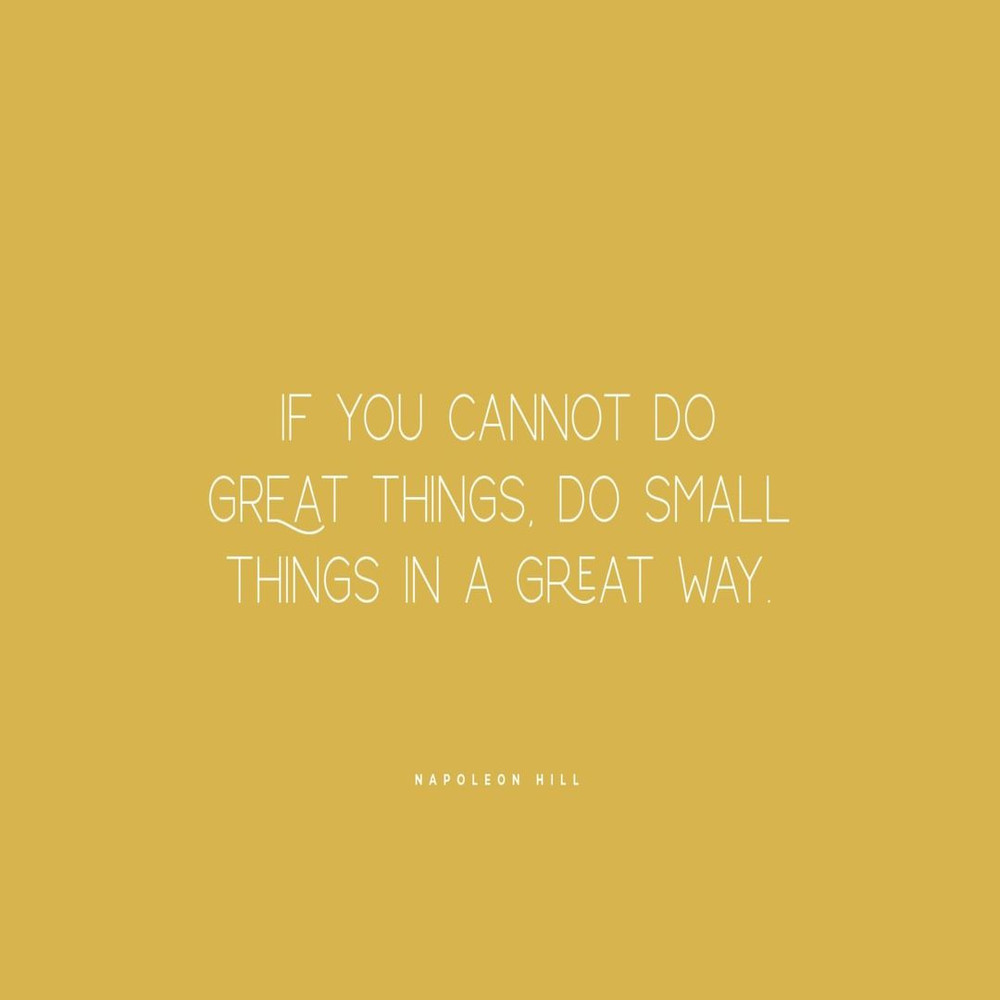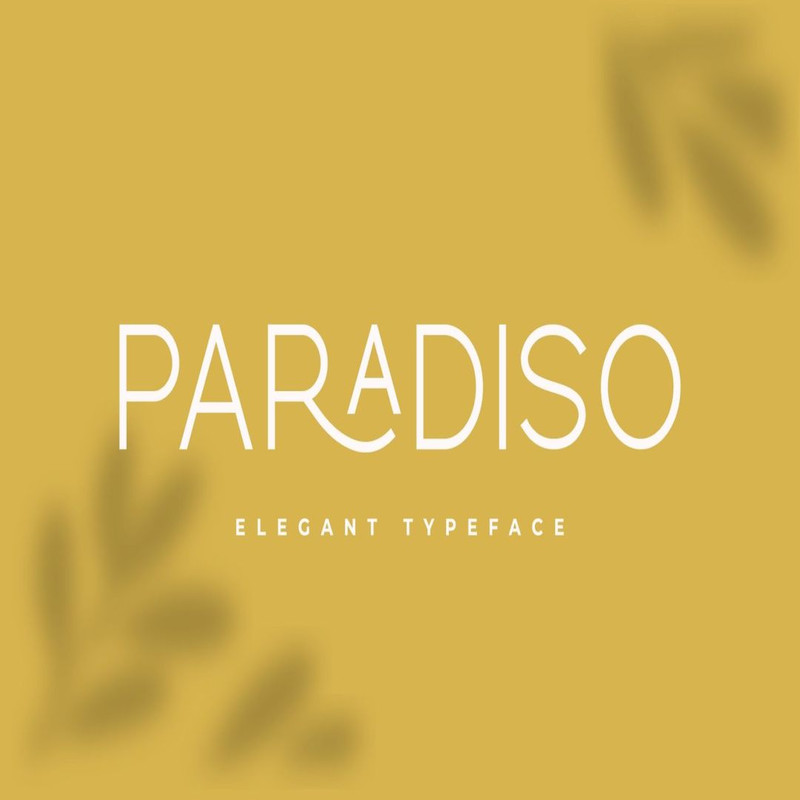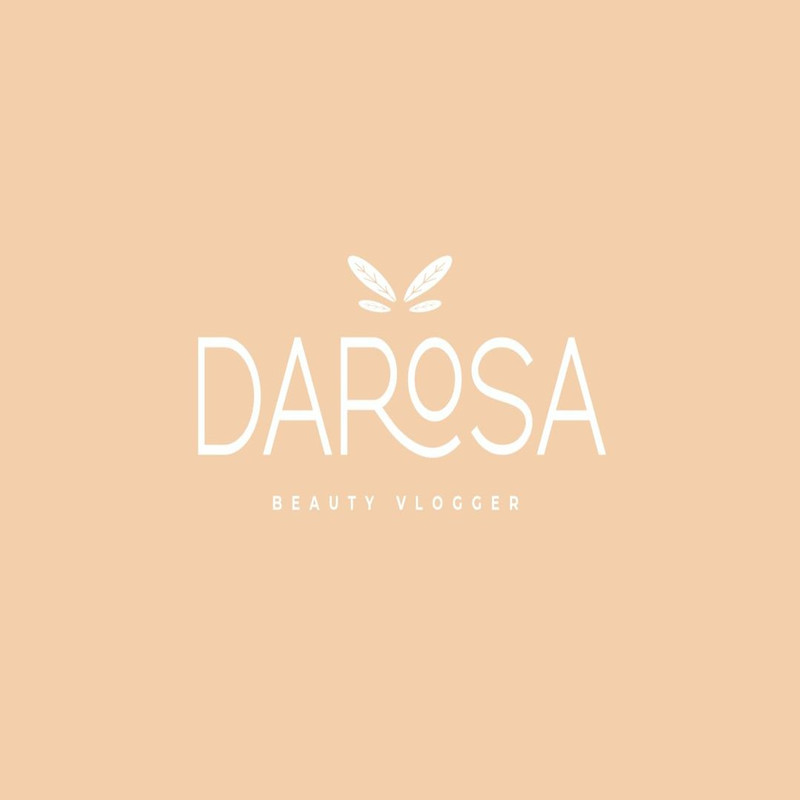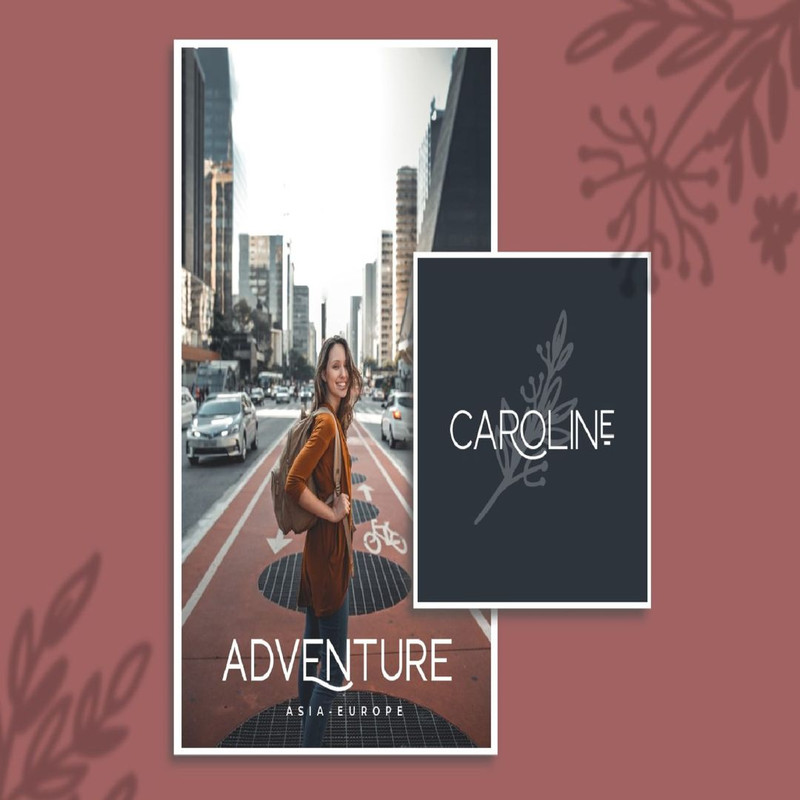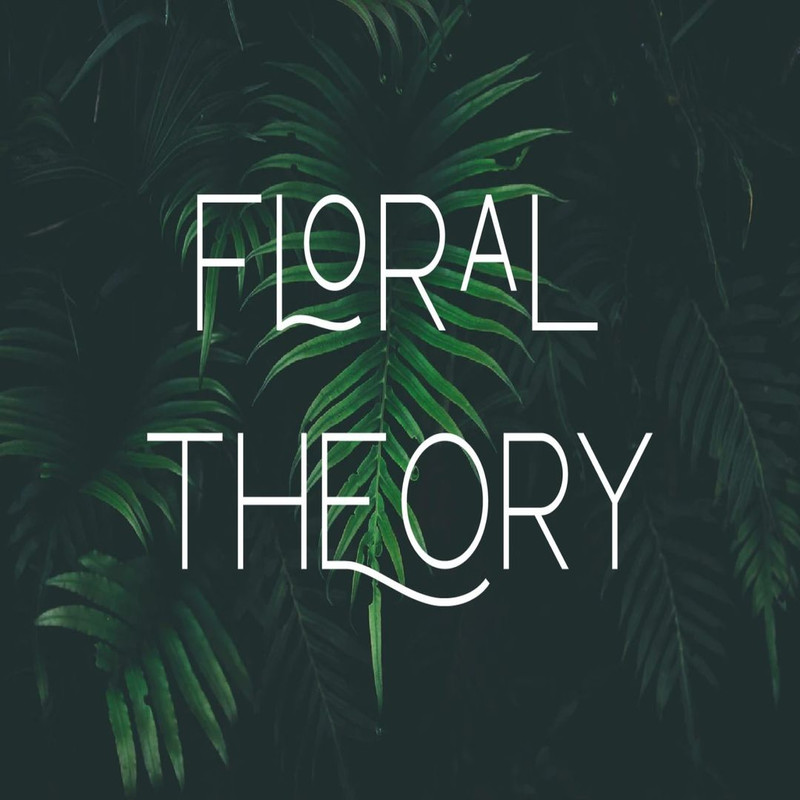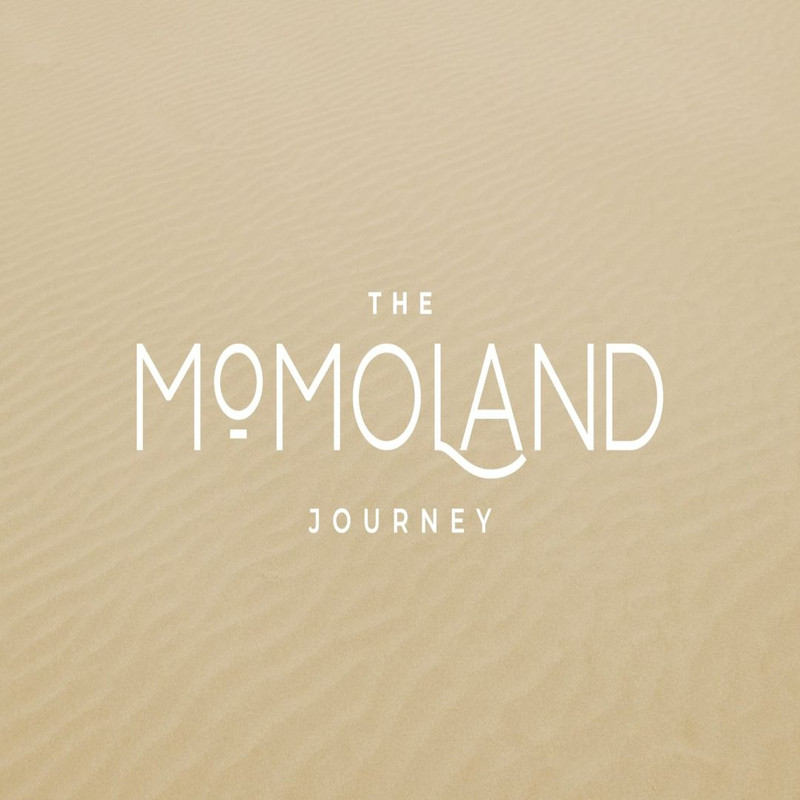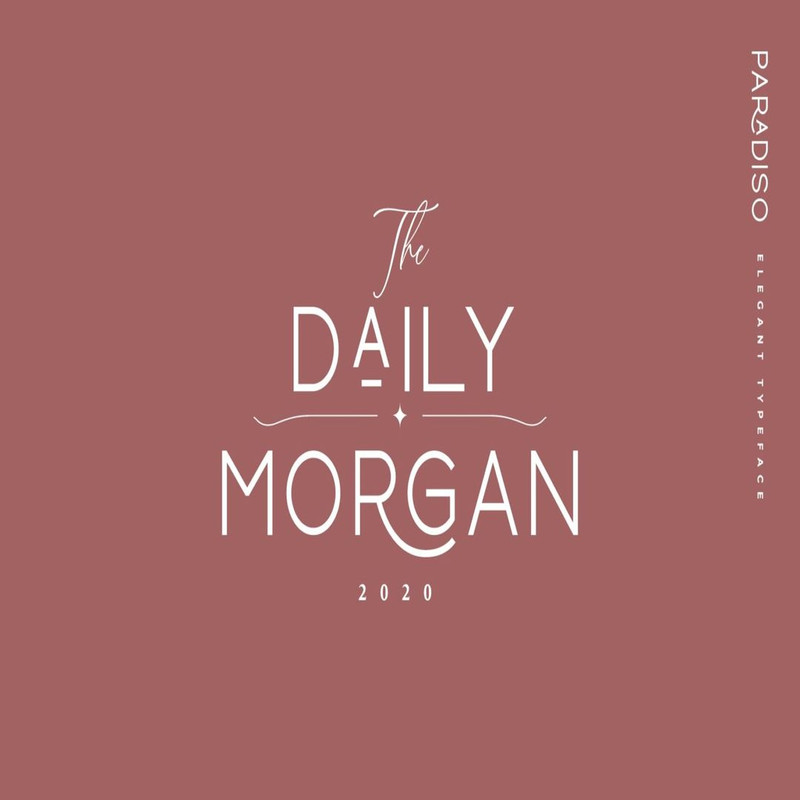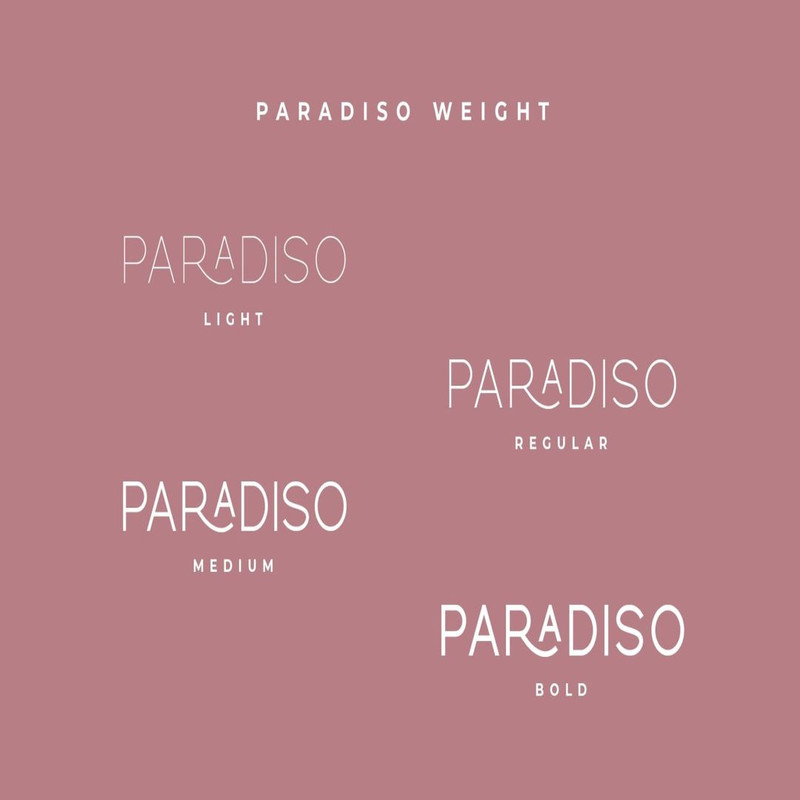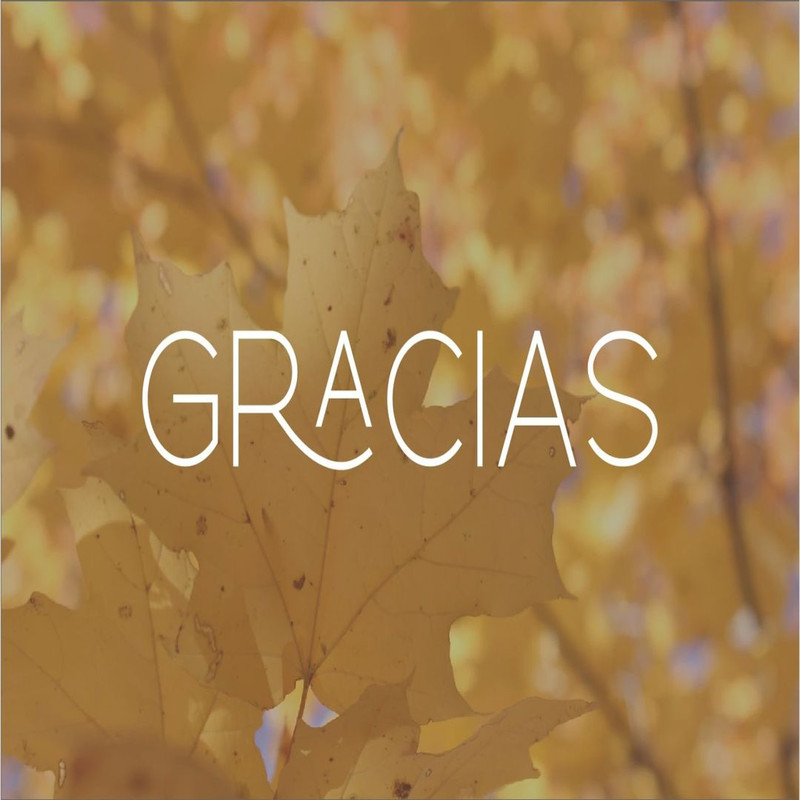
Paradiso is equipped with all caps, punctuation, number, beautiful and elegant elternate, this font is also multilingual songage. paradiso come with 4 weight, you can use according to your imagination. let’s create with paradiso.